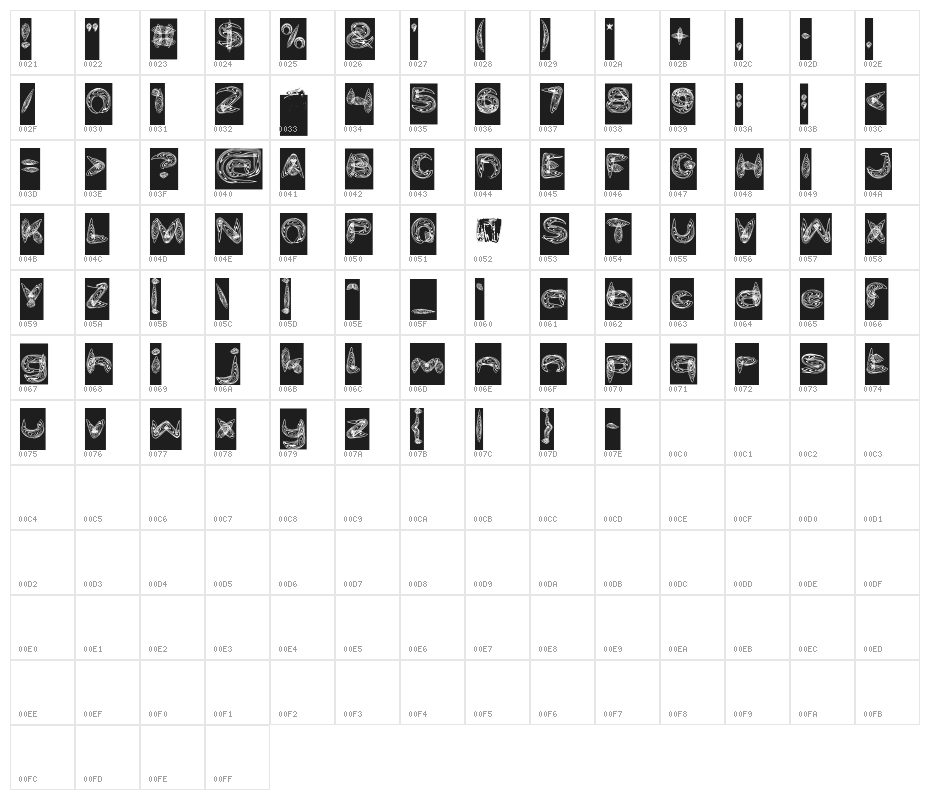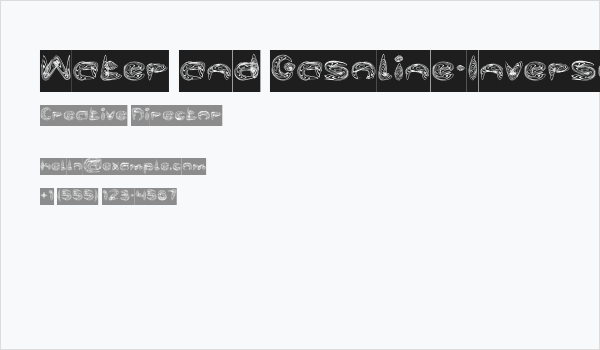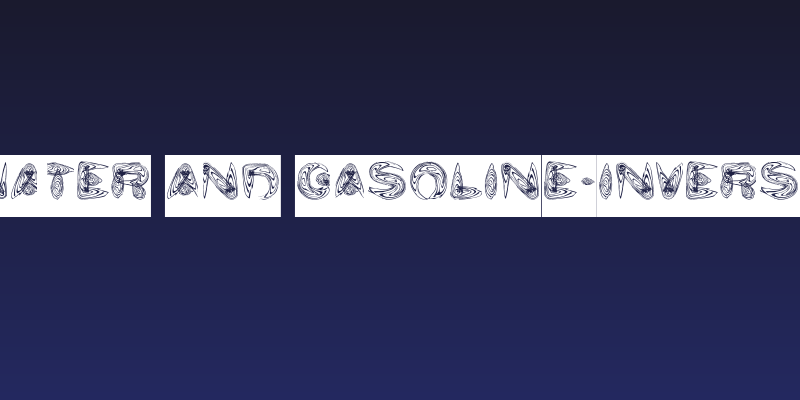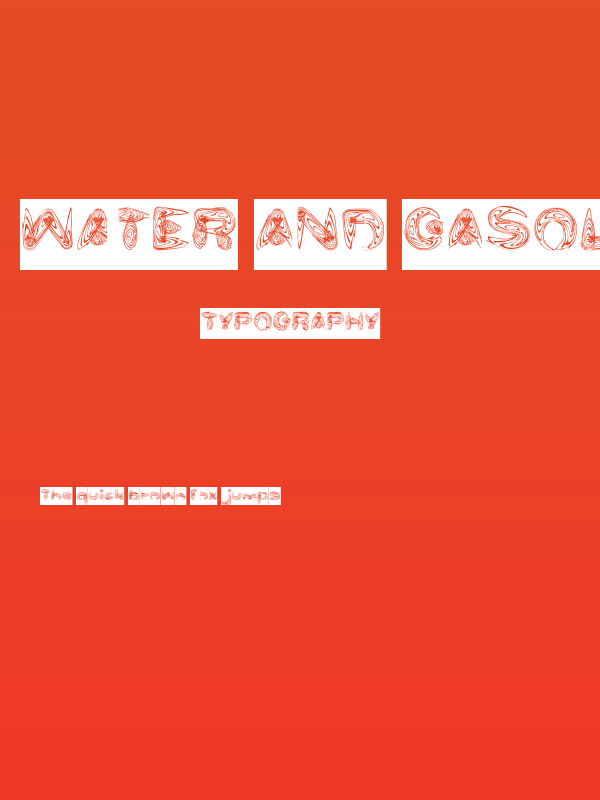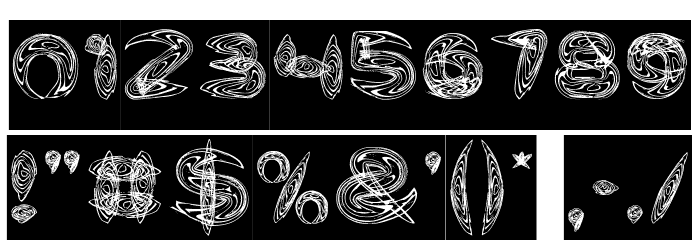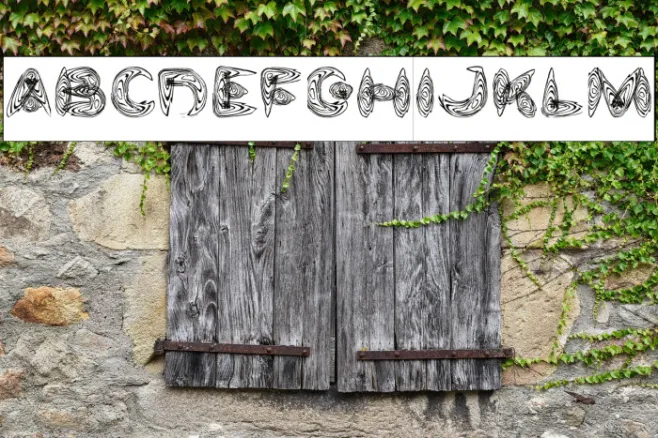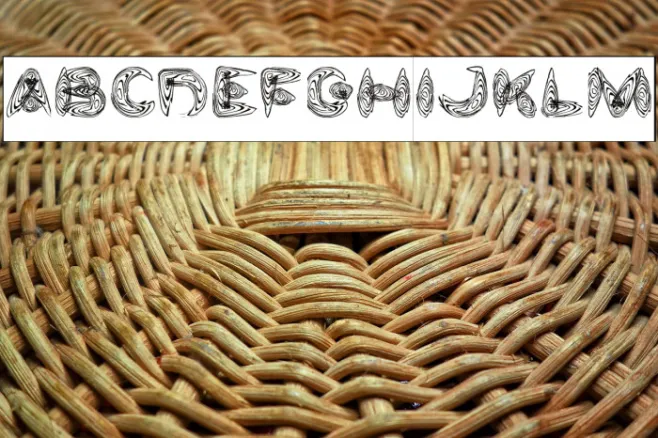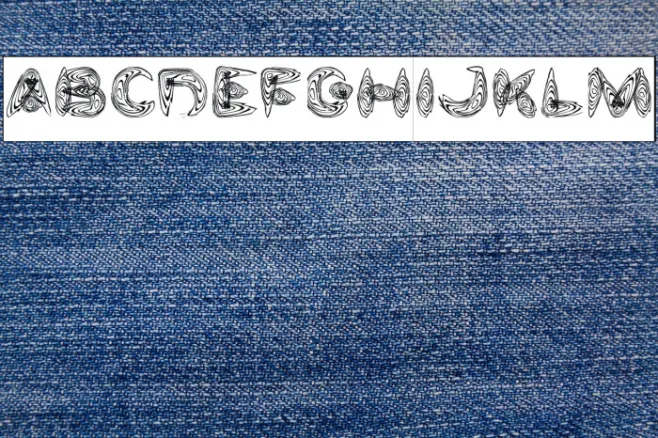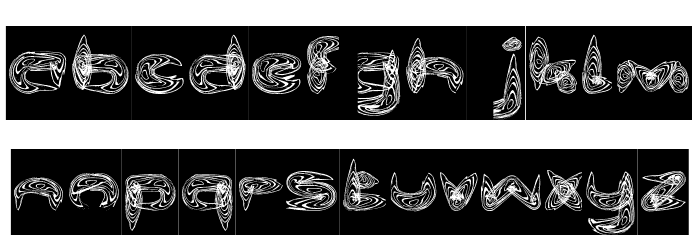
Water and Gasoline-Inverse Font
Water and Gasoline-Inverse Description
This font features a highly decorative and abstract design, characterized by swirling, fluid lines that create an intricate, almost chaotic appearance. Each character is uniquely crafted with a sense of movement and energy, resembling liquid patterns or smoke trails. The font's style is bold and eye-catching, making it suitable for artistic and unconventional projects. Its complex design may pose challenges for readability in smaller sizes, but it excels in creating a striking visual impact when used in larger formats.
| Proposed Projects | Ideal for artistic posters, album covers, creative branding, and any project seeking a bold, unconventional aesthetic. |